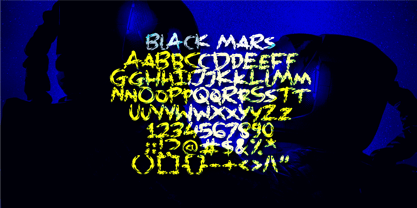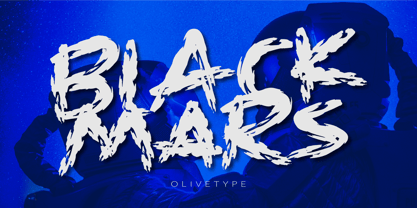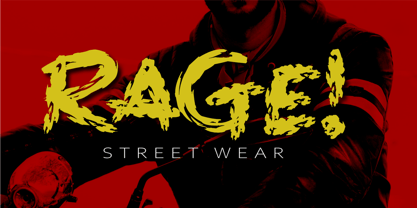
Black Mars
by Olivetype
The Black Mars Font Family was designed by Nurul Hidayani and published by Olivetype. Black Mars contains 1 styles.
Black Mars is a bold, high-impact brush font inspired by the raw chaos of outer space and the brutal surface of the red planet. Featuring aggressive strokes, rough edges, and dynamic movement, this font delivers a powerful cinematic feel perfect for sci-fi movies, game titles, posters, streetwear, and rebellious branding. Black Mars captures the intensity of space warfare, underground culture, and futuristic action, making every word feel explosive, dangerous, and alive. Ideal for headlines, logos, album covers, and promotional visuals that demand attention and attitude.